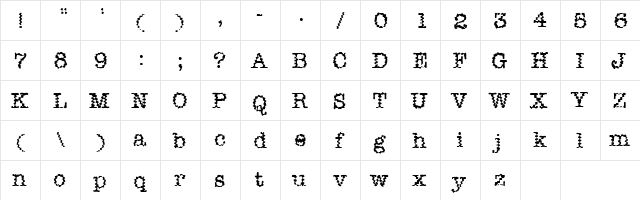
Dirtee Regular
| Designer | TheBlueJoker |
Design Context for Dirtee Typeface
Dirtee is a composed and adaptable typeface that performs quietly and consistently across a wide range of design contexts.